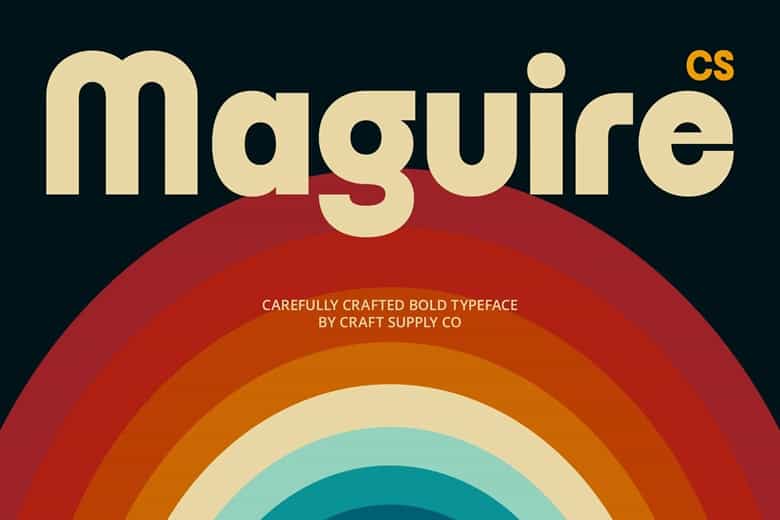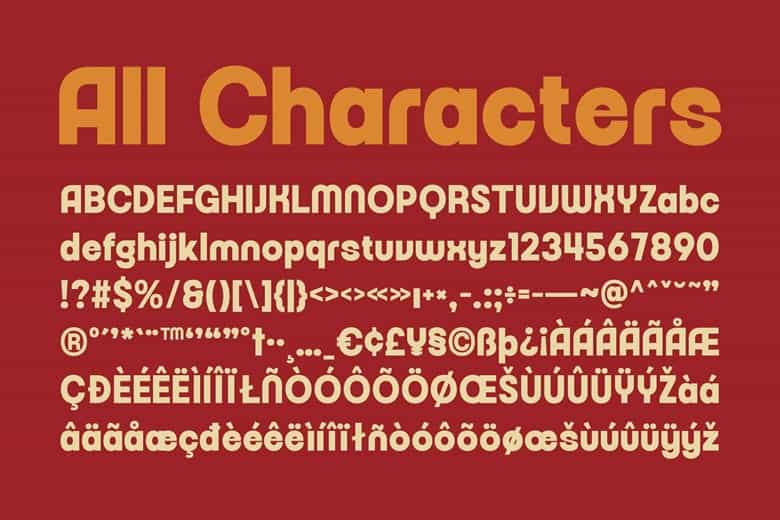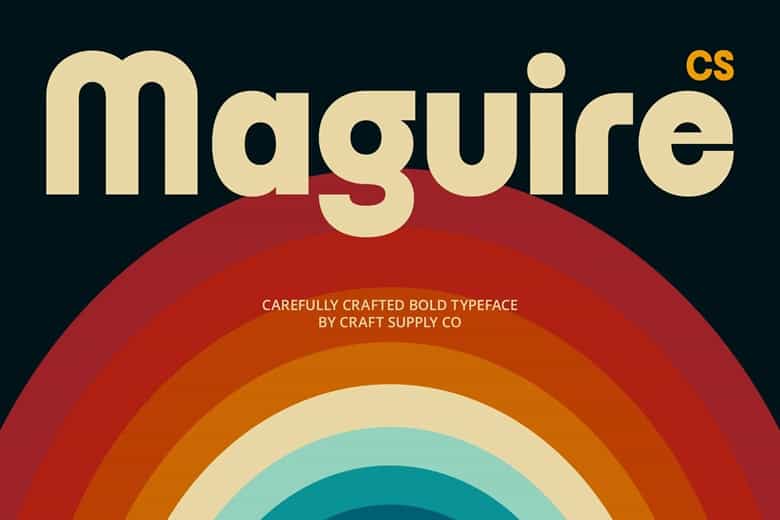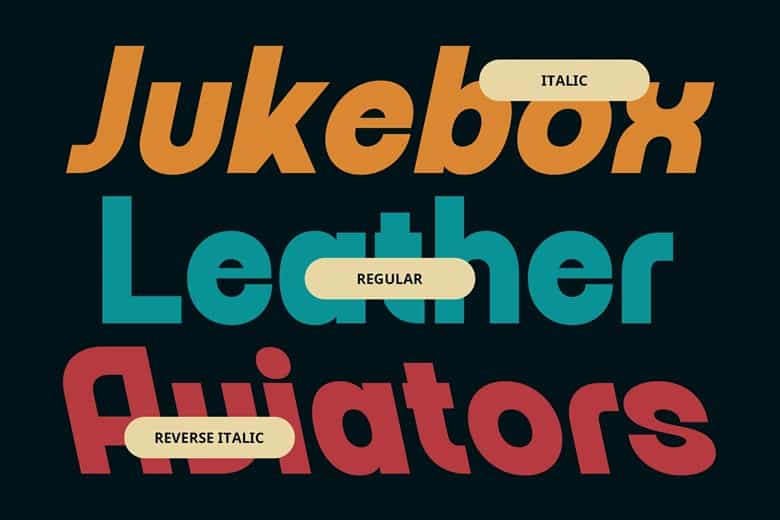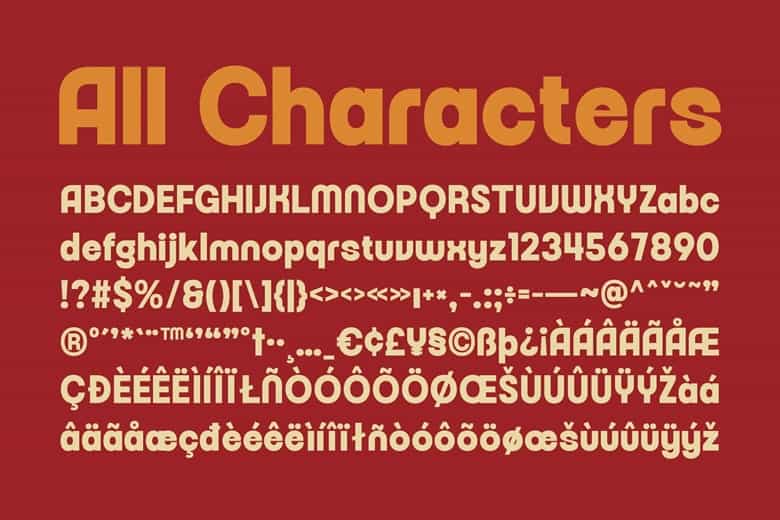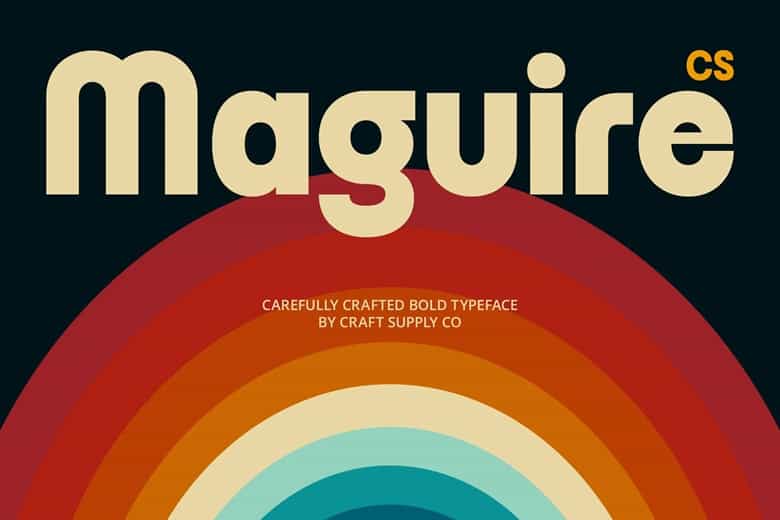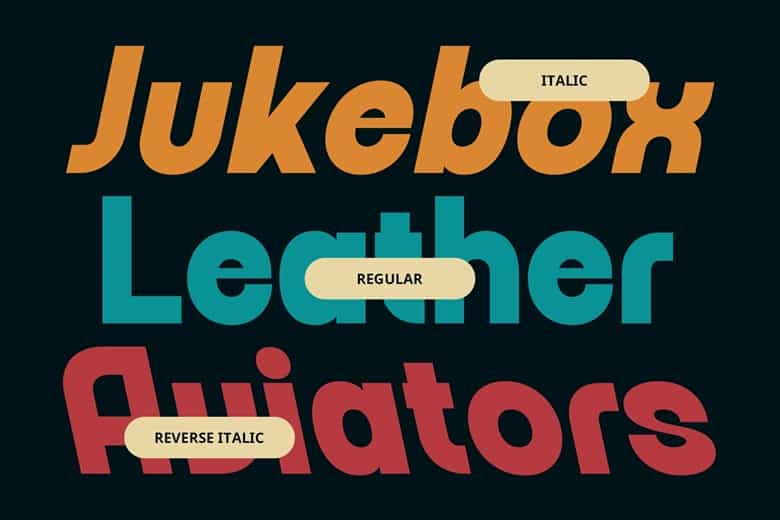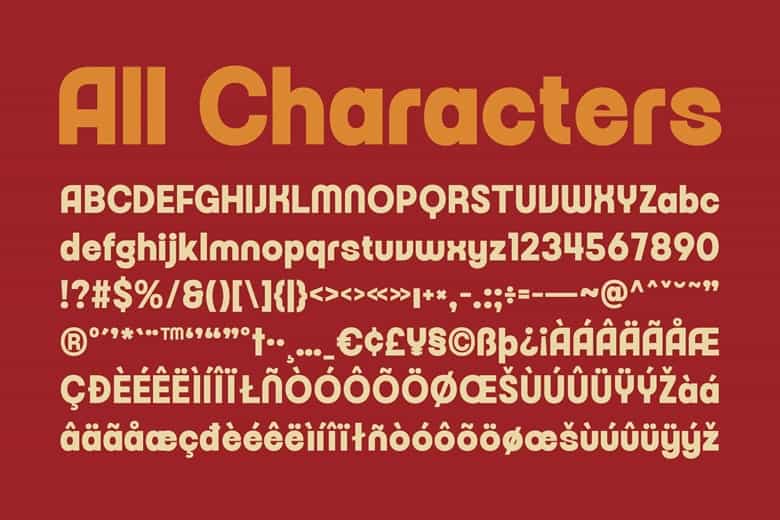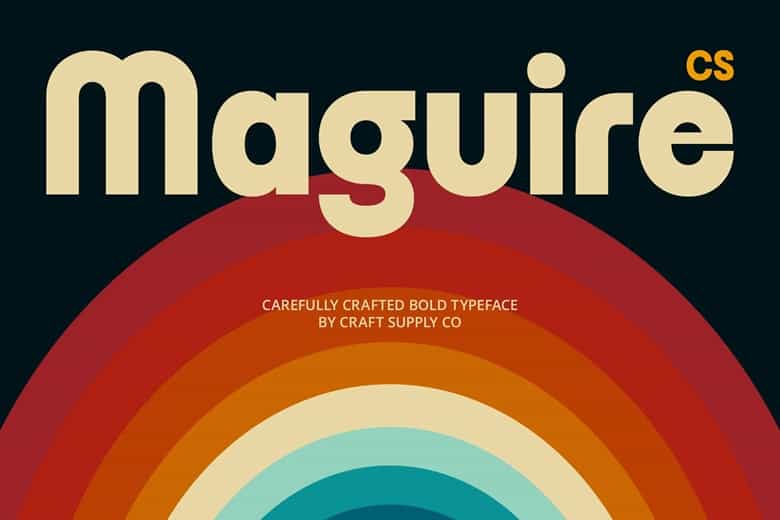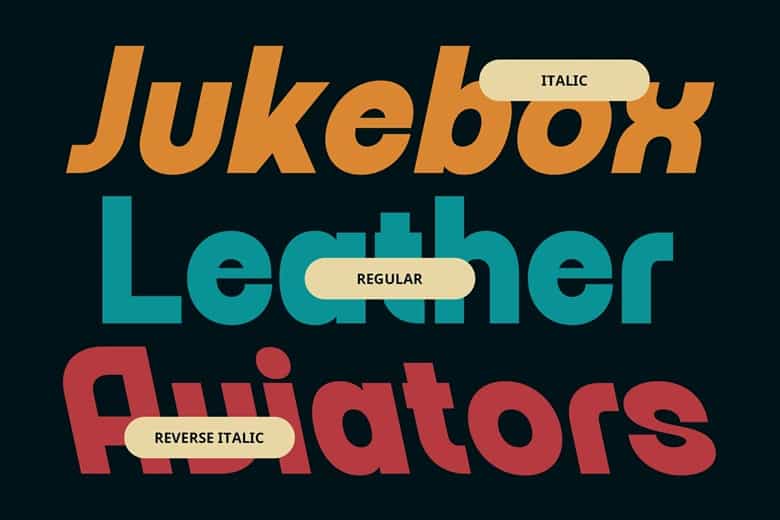
CS Maguire is traditional sans serif text generously paired with the retro elegance of 90s-era typography. It is an imitation of the print media, advertising and visual culture of the decade and creates a familiar and effective style. CS Maguire is built to have solid, unadorned lines and proportions that make it look simple to read but that still adapts into a visual impression. The sharp lines and sturdy shape make it stand the test of time so it can be used in any age of design.